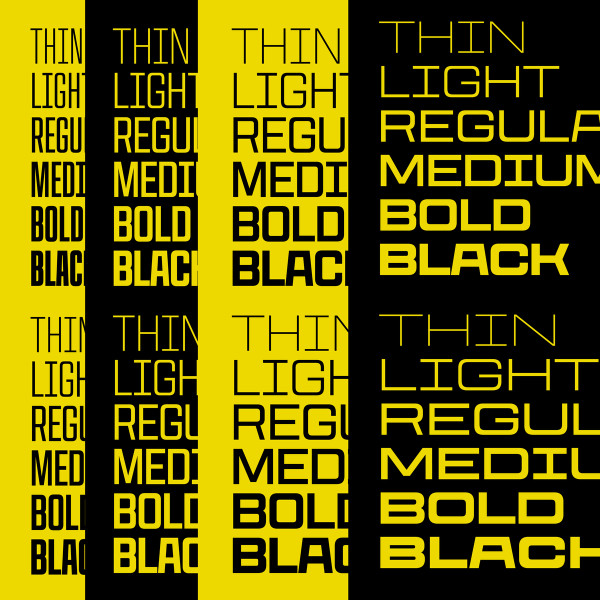
CoFo Peshka Font
CoFo Peshka Font is based on examples of industrial lettering from the early 20th сentury, and yet the design is not limited to being a pure revival. Seemingly square, blocky and brutal, CoFo Peshka nevertheless embodies familiarity and friendliness. We pushed the initial idea to a variety of extremes, added extensive language and character support and developed it as a variable typeface from the very start.
Available in a range of weights, widths and slants (including backslant), Peshka grew into a type family that allows nearly endless possibilities. Additionally, it is also multiplexed, meaning the glyphs keep the same width across all weights (changing the weight won’t change your line of text). This, together with the wide variety of styles, makes the typeface particularly fun to play with in motion design and animation.
Peshka has an extensive language support: it comes not only in Latin and Cyrillic, but also in Hebrew. The character set includes: two styles of fractions, superiors, inferiors, and an extensive set of currencies. At last we even designed two sets of accented characters so that you can make the line space extremely tight.
You may ask, is there anything that Peshka does not have? Unfortunately, it is still a unicase typeface. So far we cannot imagine a matching lowercase for it. But who knows, maybe one day…